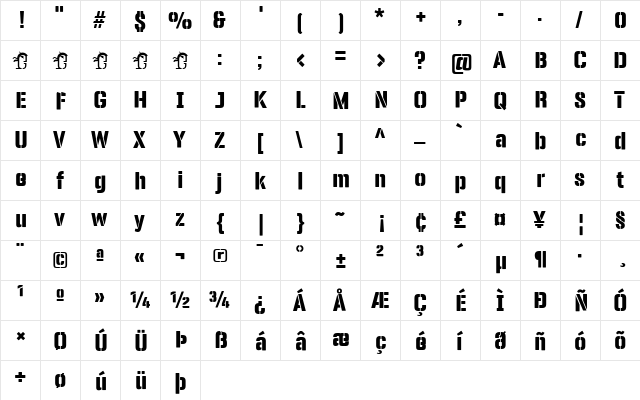
Panfleta Stencil ExtBd Regular
| Foundry | deFharo |
| Designer | Fernando Haro |
Design Context for Panfleta Stencil ExtBd Typeface
Panfleta Stencil ExtBd has the rough pragmatism of spray-painted stencil signage, adding a raw, street-level authenticity to designs.
A strong choice for packaging that needs edge, warehouse aesthetics, and rough-and-ready visual identities.
Pro Tip: Use Panfleta Stencil ExtBd at large sizes on packaging, posters, or apparel where the stencil cutaways read clearly. Avoid small sizes where those gaps become visual noise.